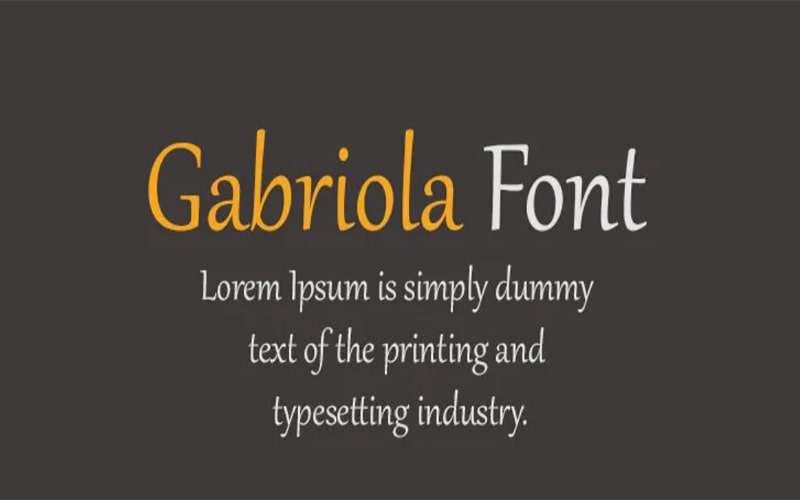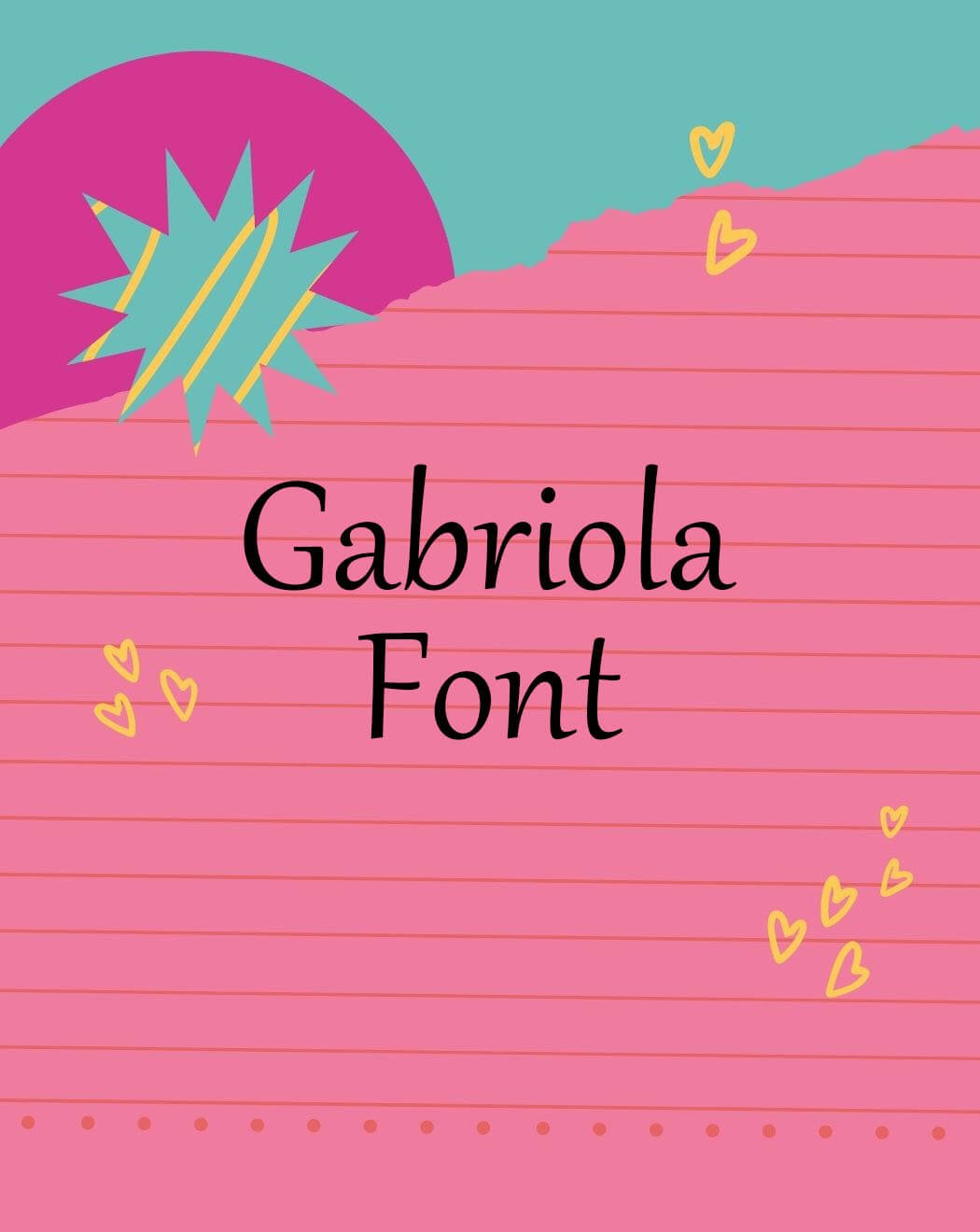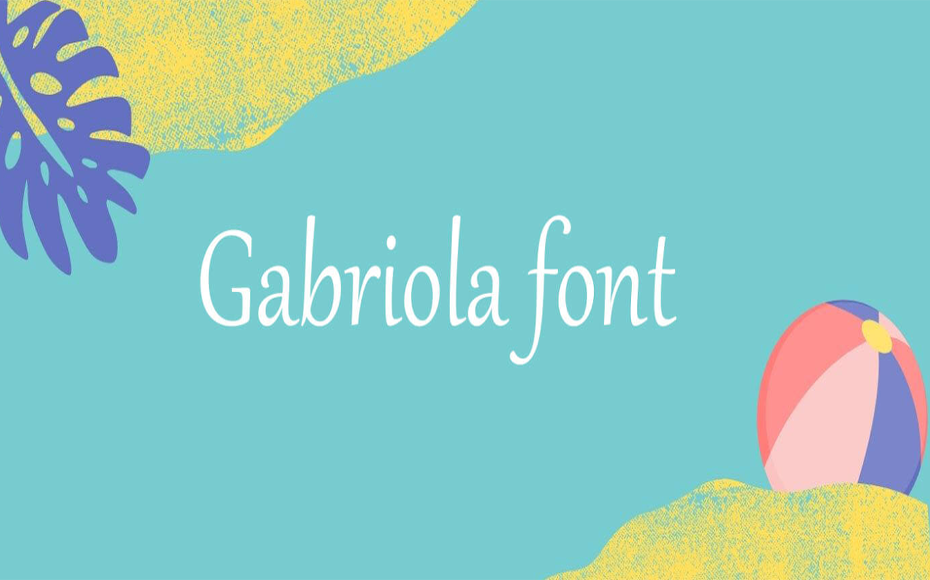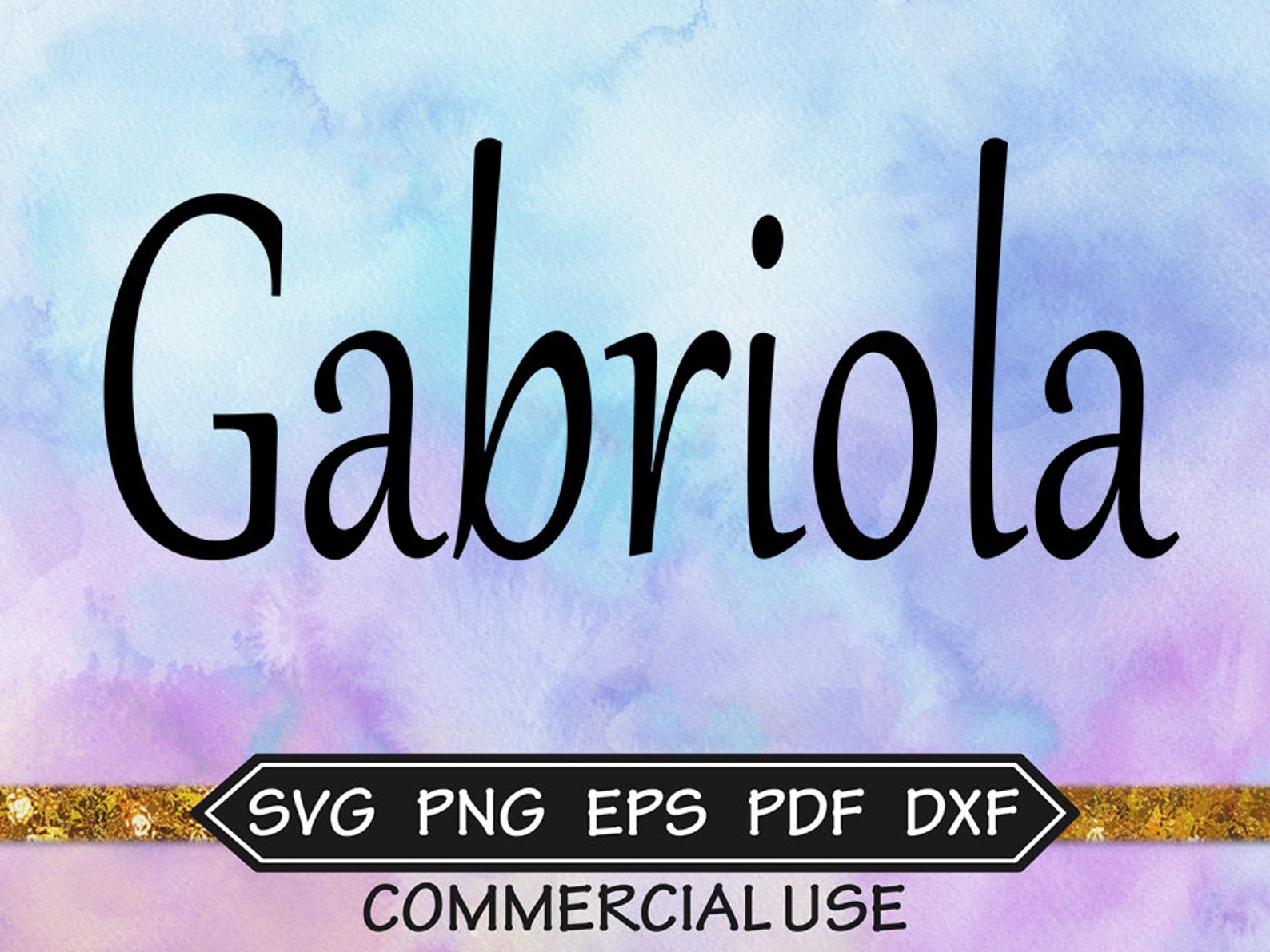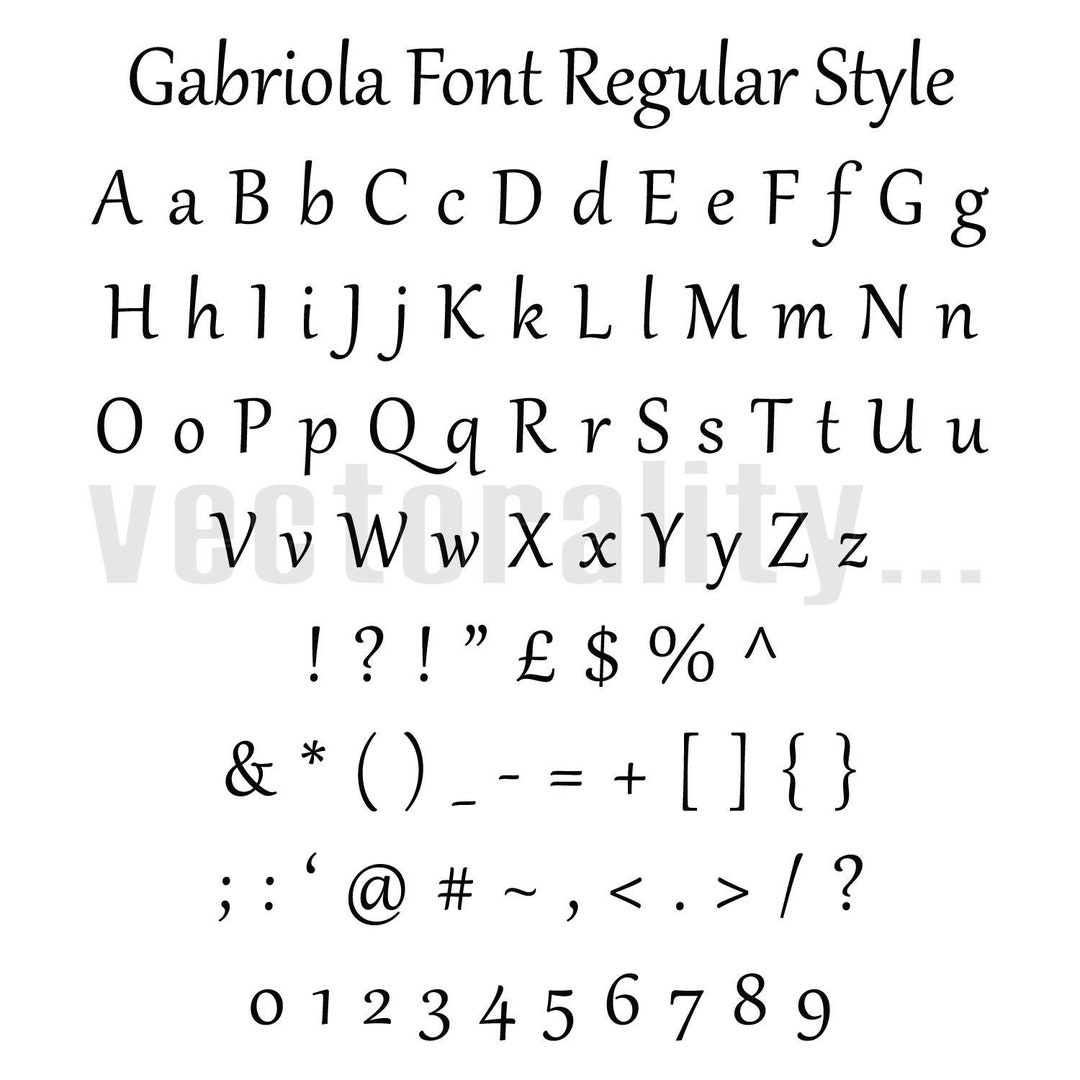
Gabriola Font Generator . This gabriola display font will be a great ideal font for every design project, for its stylish glance and crescent shape. Installable on pc, mac, linux, ios, and android platforms. The “friends” font is known as “gabriola.” it is a distinctive and recognizable typeface that is used in the logo and branding of the popular television show “friends.” the font is characterized by its playful and friendly appearance, with unique letterforms that make it instantly recognizable to fans of the show. Thousands of designers (famous or not) use the image font detection system to find a font or similar free fonts from an image. With the combination of the sharp and artistic design with the open types features, you can easily get an idea of this font family by checking. Discover the free gabriola font at free font download ! Every character of gabriola font is classy, elegant, feminine, luxurious, sophisticated, vintage, and natural feel.
Every character of gabriola font is classy, elegant, feminine, luxurious, sophisticated, vintage, and natural feel. This gabriola display font will be a great ideal font for every design project, for its stylish glance and crescent shape. Thousands of designers (famous or not) use the image font detection system to find a font or similar free fonts from an image. Discover the free gabriola font at free font download ! Installable on pc, mac, linux, ios, and android platforms. The “friends” font is known as “gabriola.” it is a distinctive and recognizable typeface that is used in the logo and branding of the popular television show “friends.” the font is characterized by its playful and friendly appearance, with unique letterforms that make it instantly recognizable to fans of the show. With the combination of the sharp and artistic design with the open types features, you can easily get an idea of this font family by checking.
Gabriola Font Generator  Every character of gabriola font is classy, elegant, feminine, luxurious, sophisticated, vintage, and natural feel. With the combination of the sharp and artistic design with the open types features, you can easily get an idea of this font family by checking. Installable on pc, mac, linux, ios, and android platforms. Discover the free gabriola font at free font download ! Every character of gabriola font is classy, elegant, feminine, luxurious, sophisticated, vintage, and natural feel. Thousands of designers (famous or not) use the image font detection system to find a font or similar free fonts from an image. The “friends” font is known as “gabriola.” it is a distinctive and recognizable typeface that is used in the logo and branding of the popular television show “friends.” the font is characterized by its playful and friendly appearance, with unique letterforms that make it instantly recognizable to fans of the show. This gabriola display font will be a great ideal font for every design project, for its stylish glance and crescent shape.
Gabriola Font Fontzaa Fonts Free Download Gabriola Font Generator  The “friends” font is known as “gabriola.” it is a distinctive and recognizable typeface that is used in the logo and branding of the popular television show “friends.” the font is characterized by its playful and friendly appearance, with unique letterforms that make it instantly recognizable to fans of the show. Every character of gabriola font is classy, elegant, feminine,. Gabriola Font Generator.
Gabriola Font Download Free for Desktop & font Gabriola Font Generator  Installable on pc, mac, linux, ios, and android platforms. The “friends” font is known as “gabriola.” it is a distinctive and recognizable typeface that is used in the logo and branding of the popular television show “friends.” the font is characterized by its playful and friendly appearance, with unique letterforms that make it instantly recognizable to fans of the show.. Gabriola Font Generator.
Gabriola Font Free Download Gabriola Font Generator  The “friends” font is known as “gabriola.” it is a distinctive and recognizable typeface that is used in the logo and branding of the popular television show “friends.” the font is characterized by its playful and friendly appearance, with unique letterforms that make it instantly recognizable to fans of the show. Discover the free gabriola font at free font download. Gabriola Font Generator.
Gabriola bold font imgascse Gabriola Font Generator  With the combination of the sharp and artistic design with the open types features, you can easily get an idea of this font family by checking. Installable on pc, mac, linux, ios, and android platforms. Thousands of designers (famous or not) use the image font detection system to find a font or similar free fonts from an image. The “friends”. Gabriola Font Generator.
Gabriola Font Free Download Gabriola Font Generator  Installable on pc, mac, linux, ios, and android platforms. This gabriola display font will be a great ideal font for every design project, for its stylish glance and crescent shape. Thousands of designers (famous or not) use the image font detection system to find a font or similar free fonts from an image. Every character of gabriola font is classy,. Gabriola Font Generator.
Gabriela Font Free Download Gabriola Font Generator  With the combination of the sharp and artistic design with the open types features, you can easily get an idea of this font family by checking. The “friends” font is known as “gabriola.” it is a distinctive and recognizable typeface that is used in the logo and branding of the popular television show “friends.” the font is characterized by its. Gabriola Font Generator.
Gabriola Font Regular Style Alphabet Letters Vector Art File Etsy UK Gabriola Font Generator  Every character of gabriola font is classy, elegant, feminine, luxurious, sophisticated, vintage, and natural feel. Installable on pc, mac, linux, ios, and android platforms. With the combination of the sharp and artistic design with the open types features, you can easily get an idea of this font family by checking. This gabriola display font will be a great ideal font. Gabriola Font Generator.
Gabriola Fonts Hut Gabriola Font Generator  Every character of gabriola font is classy, elegant, feminine, luxurious, sophisticated, vintage, and natural feel. Thousands of designers (famous or not) use the image font detection system to find a font or similar free fonts from an image. With the combination of the sharp and artistic design with the open types features, you can easily get an idea of this. Gabriola Font Generator.
Download free Gabriola Regular font Gabriola.ttf Gabriola Font Generator  The “friends” font is known as “gabriola.” it is a distinctive and recognizable typeface that is used in the logo and branding of the popular television show “friends.” the font is characterized by its playful and friendly appearance, with unique letterforms that make it instantly recognizable to fans of the show. Installable on pc, mac, linux, ios, and android platforms.. Gabriola Font Generator.